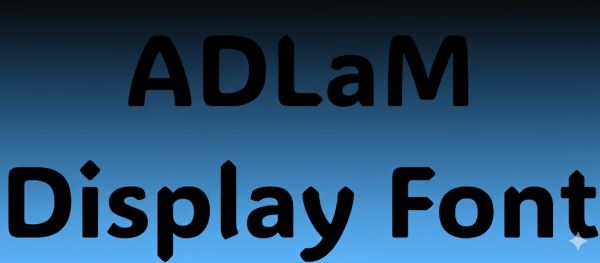
Adlam Font
Adlam Font is a distinctive display typeface designed by Andrew Footit. It features bold shapes, playful rhythm, and strong visual personality, making it ideal for headlines, posters, logos, branding, packaging, and creative projects that need eye-catching typography with character, energy, and memorable impact across print and digital media formats worldwide.
➤ Designer: Andrew Footit
➤ Style: Display